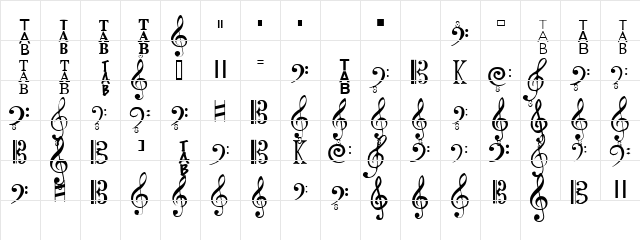
Clefs Regular
Design Context for Clefs Typeface
Clefs is a composed and adaptable typeface that performs quietly and consistently across a wide range of design contexts.